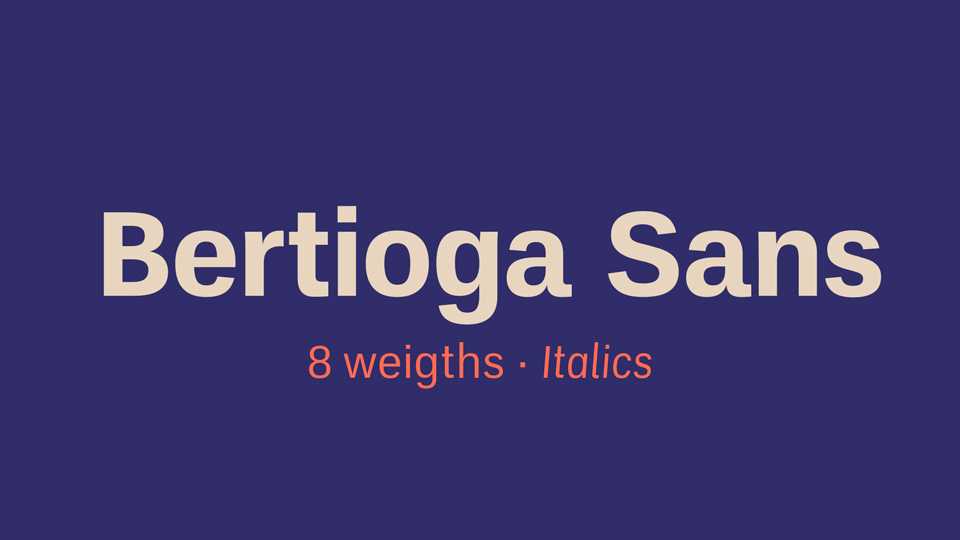
Download Bertioga Sans typeface, a sans serif font family developed from open-source fonts UnB Pro. Bertioga Sans includes many fixes and remastering (so this font includes 8 weights with matching italics).
Designer: Cristiano Sobral